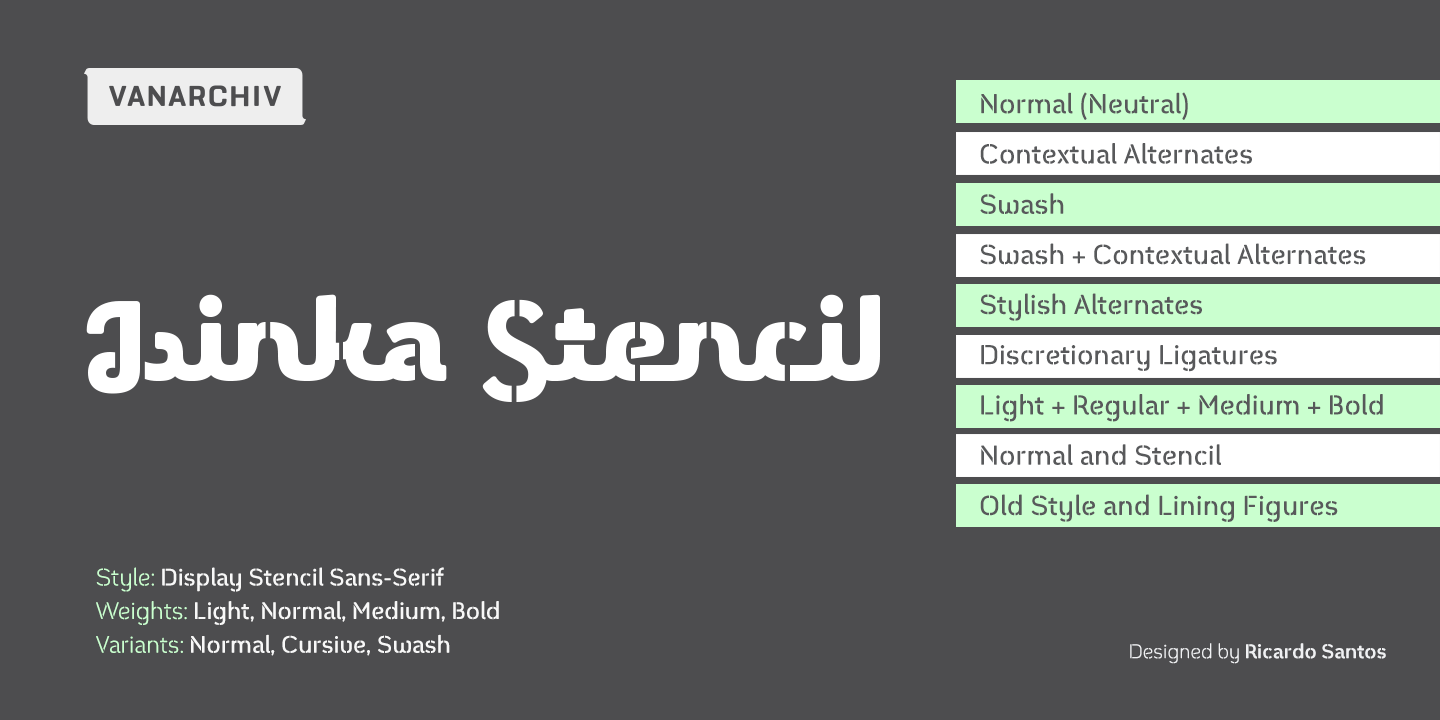
The Linka Stencil Font is perfect for various design applications including urban street art branding, military-inspired graphics, industrial packaging designs, warehouse signage, tactical gear marketing, shipping label templates, construction zone warnings, and modern stencil art projects. This bold typeface works exceptionally well for brands requiring strong industrial character and projects that need authentic stencil aesthetics with urban appeal.
What makes Linka Stencil Font exciting is its bold and utilitarian character that instantly conveys strength, functionality, and authentic industrial design with urban edge. The font features stencil letterforms with clean cuts and practical aesthetics that evoke feelings of efficiency, durability, and no-nonsense functionality. Its industrial styling and stencil-inspired appearance make it perfect for brands that want to establish credibility in practical markets and connect with audiences who value straightforward, reliable design solutions.
The Linka Stencil Font family includes multiple weights and styles, offering designers flexibility for diverse industrial applications. The family typically consists of regular, bold, condensed, and extended variations, along with stencil-inspired decorative elements and industrial ornaments, providing comprehensive coverage for projects that need both functionality and visual impact across different utilitarian contexts.
Whether you're working on industrial branding, urban design projects, or tactical marketing campaigns, Linka Stencil Font Free Download delivers the robust quality and visual strength that modern industrial designers require. The font's stencil-inspired design combined with its excellent readability makes it an essential tool for creating compelling visual communications that embody industrial efficiency and bring the authentic spirit of functional stencil design to life.